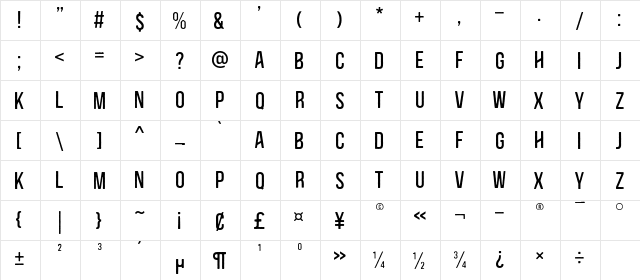
Blackside Regular
| Designer | Vilogsign 2018 |
Design Context for Blackside Typeface
Blackside offers clean, dependable letterforms without strong stylistic allegiance, making it a practical choice for designers who need flexibility.